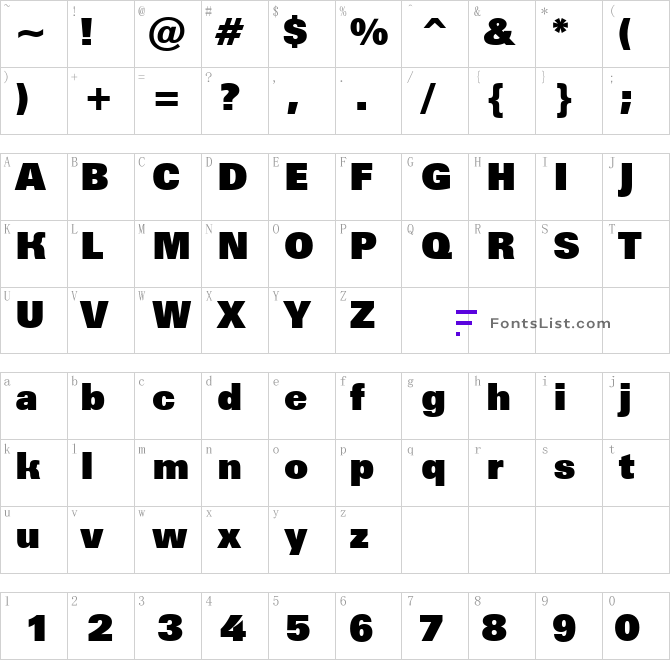
- Font Name:a_GroticExtraBlack
- Subfamily:Macromedia Fontographer 4.1 a_GroticExtraBlack
- Full Name:a_GroticExtraBlack
- Version:Macromedia Fontographer 4.1 8.07.97
- PostScript:AGroticExtraBlack
a_GroticExtraBlack.ttf is a very beautiful artistic font, a_GroticExtraBlack.ttf is widely used in the design and printing of various books and pictures,a_GroticExtraBlack.ttf has a strong visual impact,a_GroticExtraBlack.ttf is a commonly used font in newspapers, magazines and books, and is used in posters, e-commerce Poster design, store design, logo design, font design and other fields.a_GroticExtraBlack.